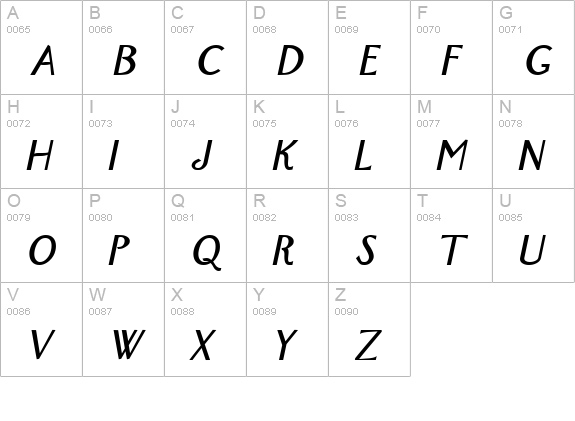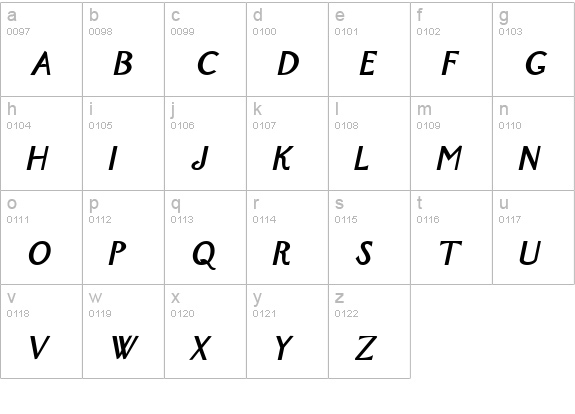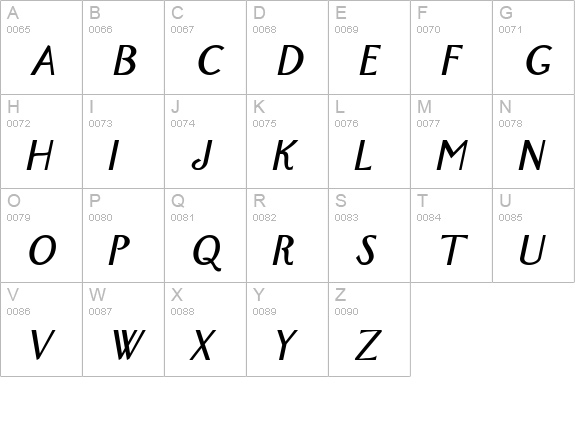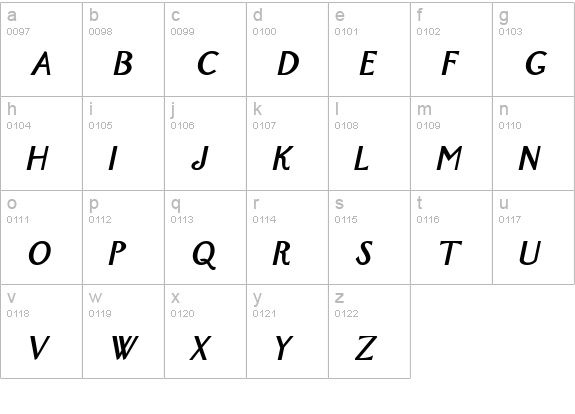
New York Bold Italic is a strong, high-contrast, italic variant in the New typeface family \xE2\x80\x94 well suited to headlines, attention-grabbing titles, and strong calls-to-action.
Introducing the captivating and dynamic New York Bold Italic font - a modern typeface that exudes confidence and style. With its sleek lines and striking curves, this font is perfect for creating eye-catching designs that demand attention. The bold italic style adds a touch of sophistication and flair to any project, making it a versatile choice for a wide range of design applications. What sets New York Bold Italic font apart is not only its striking appearance, but also the fact that it is available for free download at FontsMarket.com. This means that you can easily access and use this stunning font in your projects without any cost, making it a valuable addition to your design toolkit. Whether you're working on branding, advertising, editorial design, or any other creative project, New York Bold Italic font is sure to make a bold statement. Download it today and unleash your creativity with this sleek and modern typeface.